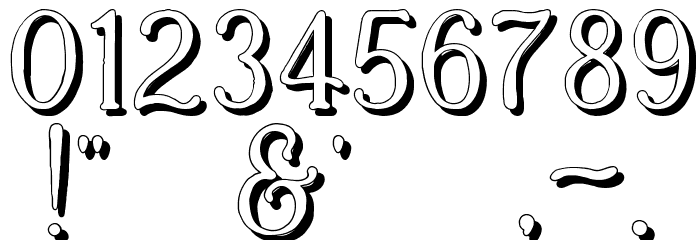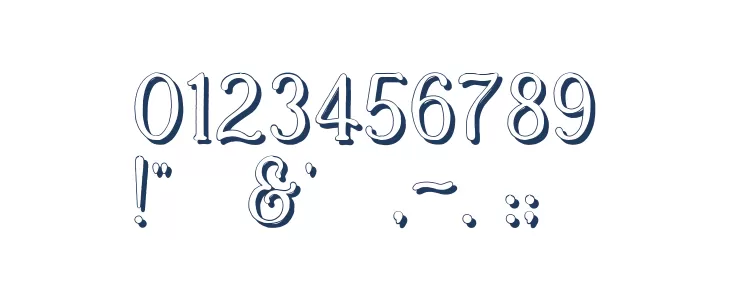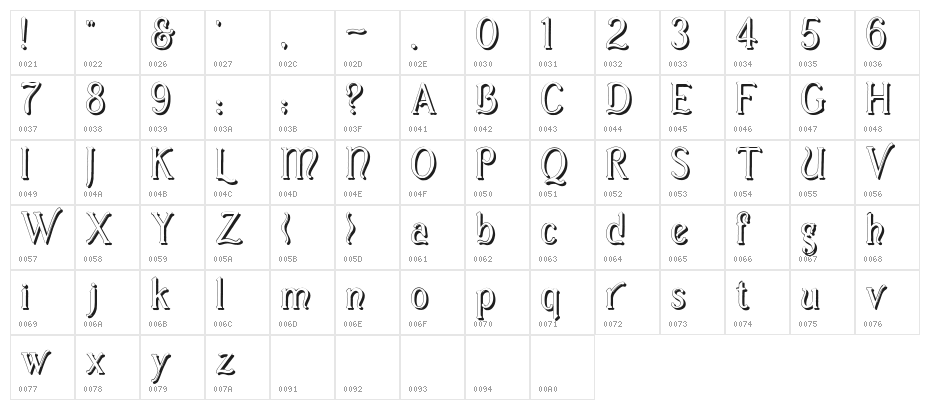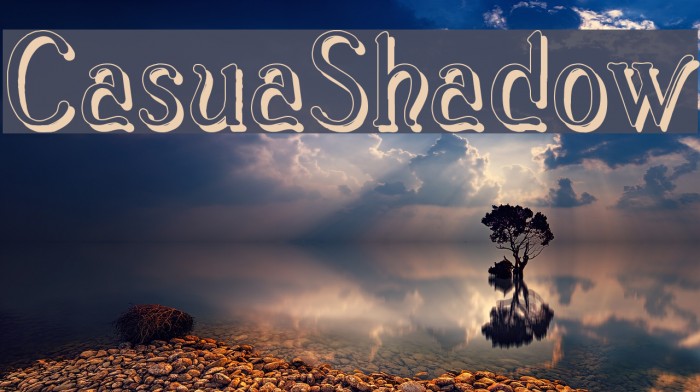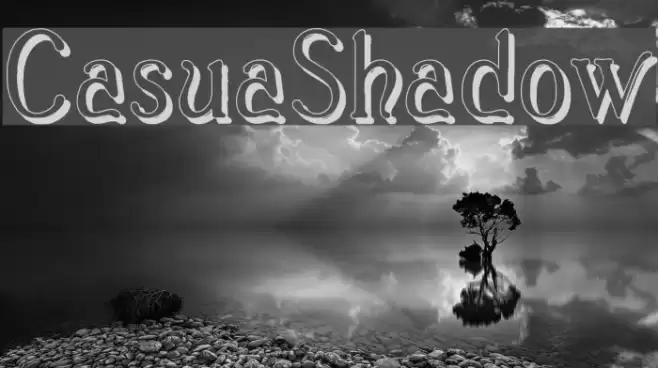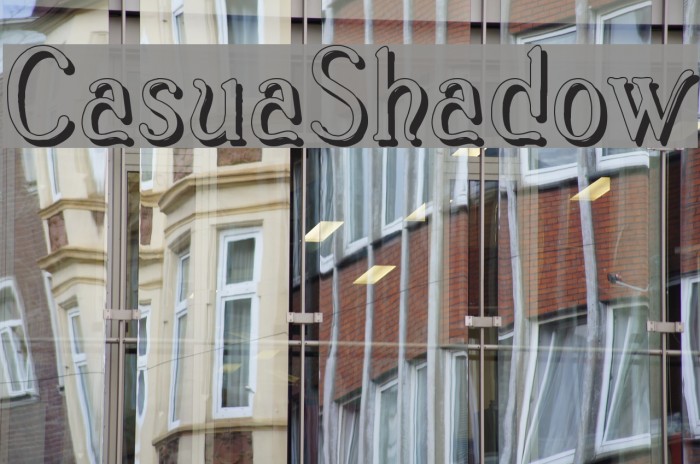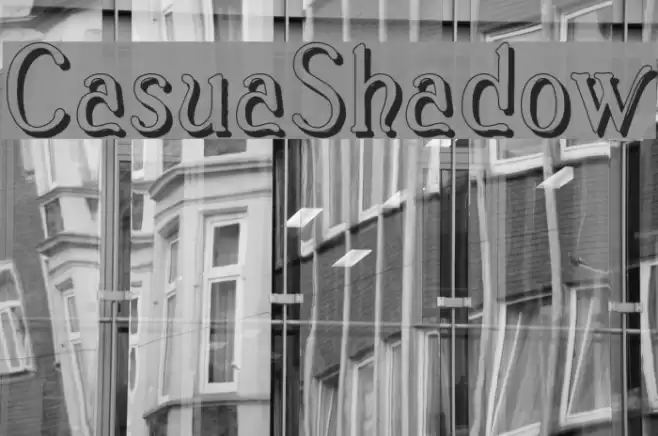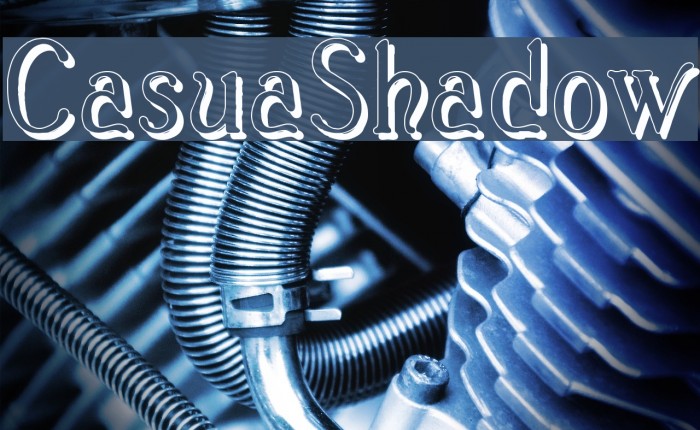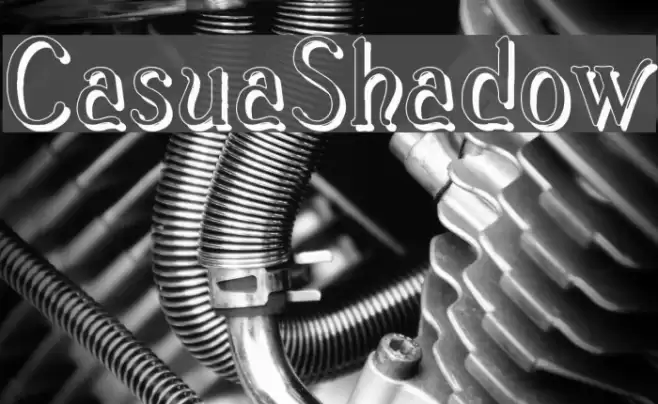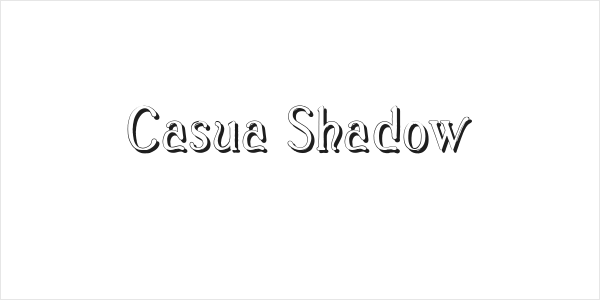
Casua_Shadow Font
Casua_Shadow Description
This font features a playful and bold design with a distinct shadow effect that adds depth and dimension to each character. The uppercase and lowercase letters maintain a consistent style, characterized by rounded edges and a slightly whimsical flair. The numbers and special characters follow the same design principles, ensuring a cohesive look across all elements. The shadow effect is prominent, giving the font a three-dimensional appearance that stands out on any page. This font is ideal for projects that require a touch of fun and creativity, such as children's books, playful branding, or eye-catching headlines.
| Use Case | Headlines, Logos, Creative designs |
| Proposed Projects | Ideal for children's books, playful branding, eye-catching headlines, and creative designs. |